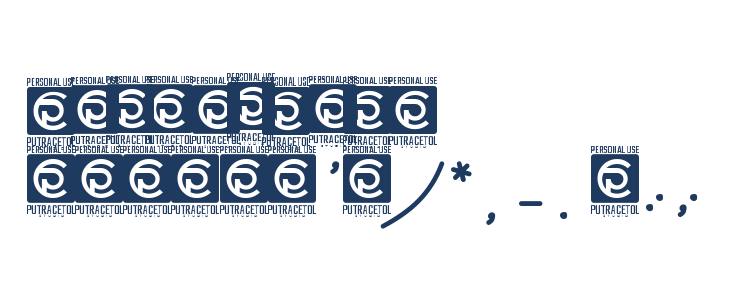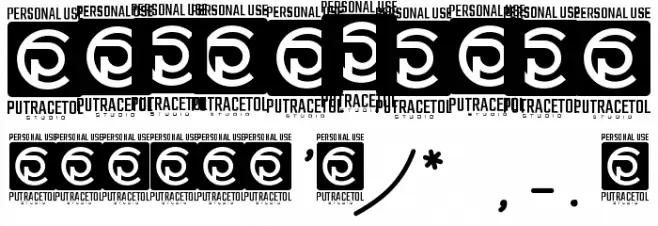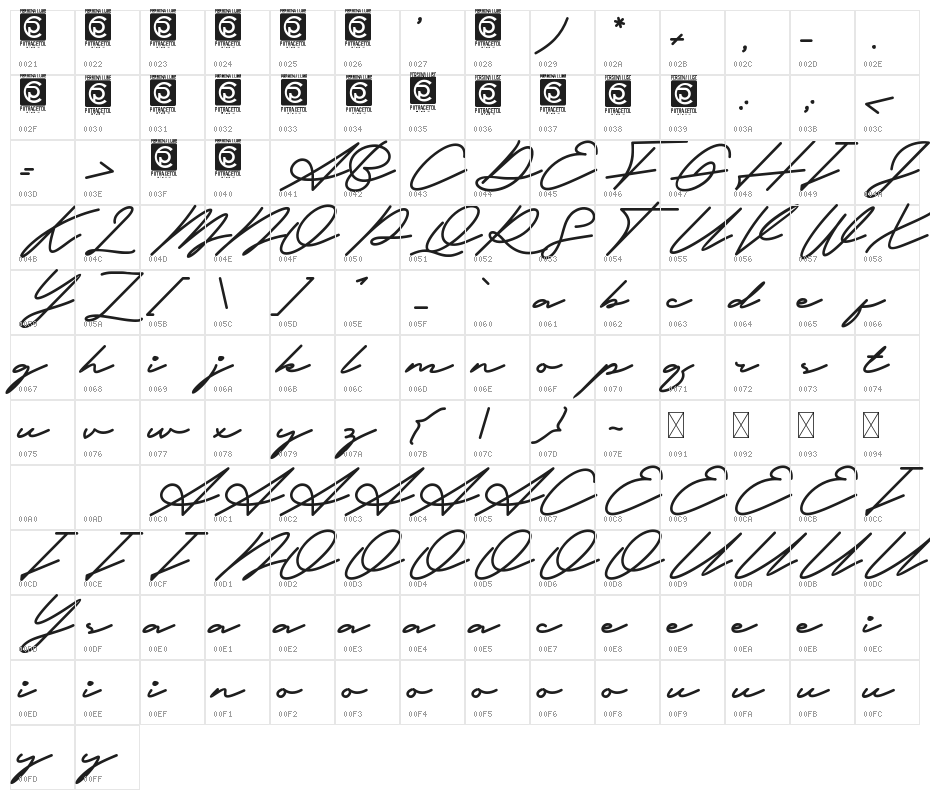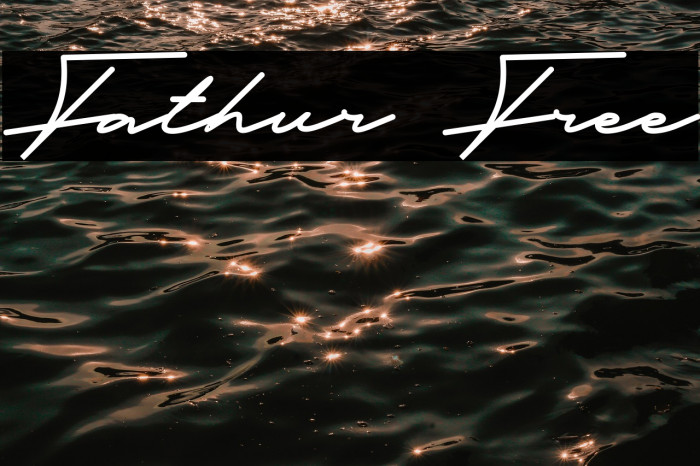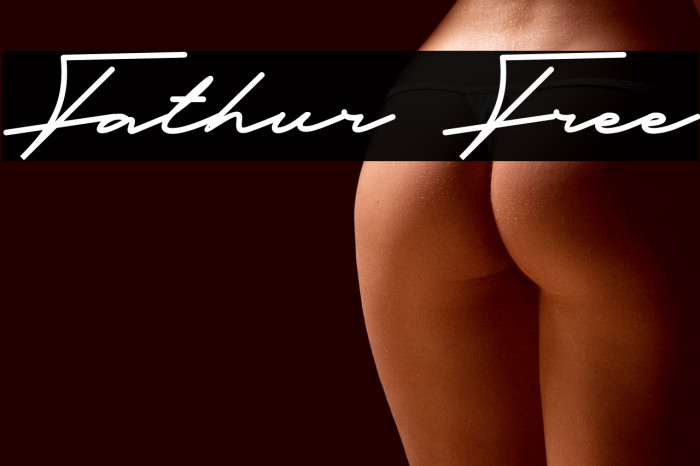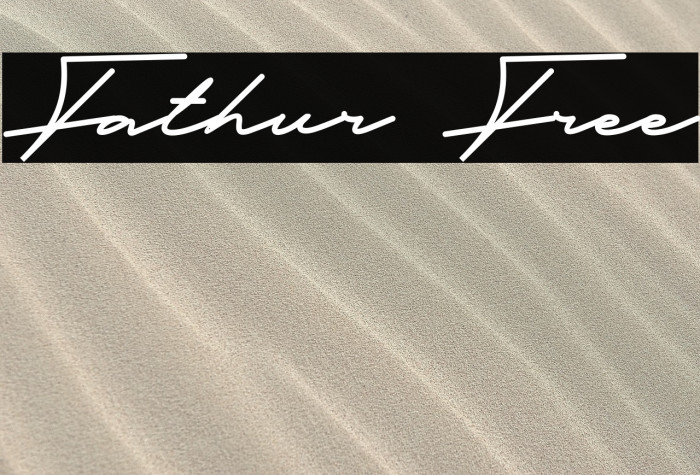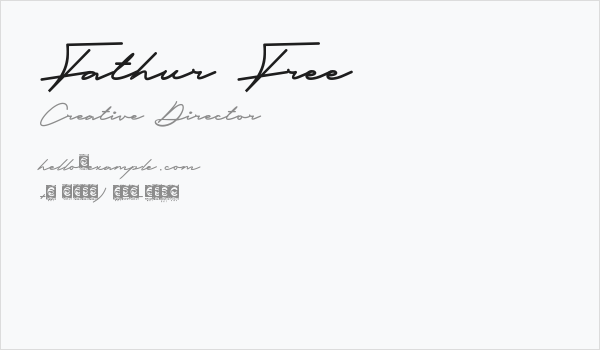
Fathur Free Font
Fathur Free Description
This font exudes a classic and elegant script style, characterized by its flowing, cursive letterforms. The uppercase letters are intricately designed with smooth, connected strokes, giving a sense of fluidity and grace. The lowercase letters maintain this fluidity, with a slightly bolder appearance that enhances readability. The font's overall aesthetic is reminiscent of traditional calligraphy, making it suitable for formal and sophisticated designs. The special characters are thoughtfully integrated, maintaining the script's cohesive style. This font is ideal for projects that require a touch of elegance and refinement.
A classic, elegant script font with flowing, cursive letterforms from Regular fonts.
- Proposed Projects: Wedding invitations, elegant branding, formal event programs, luxury product packaging.
- Overall Style: Classic
- Use Case: Logos, Invitations, Branding